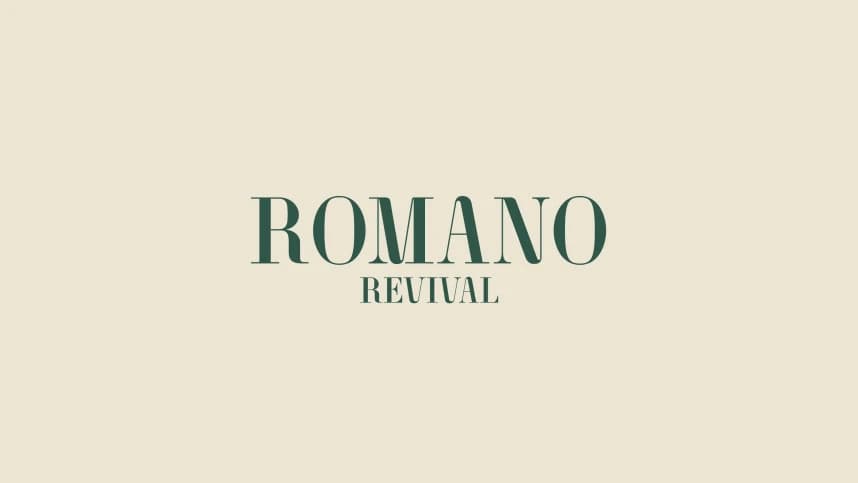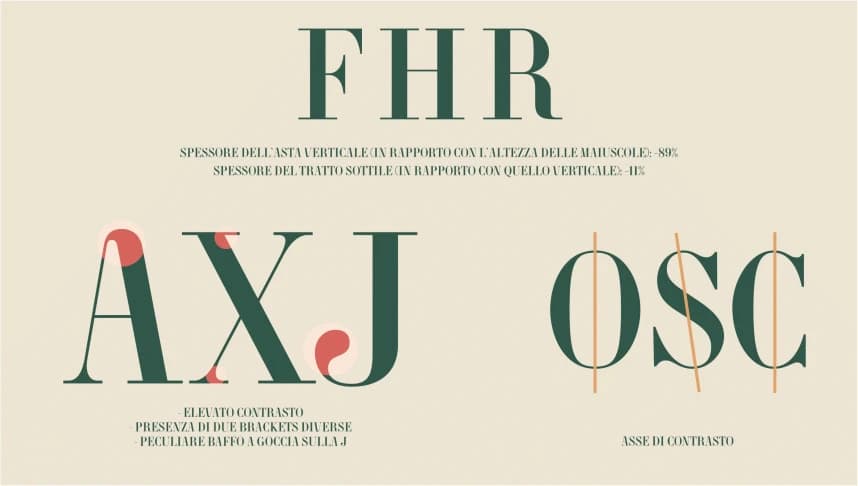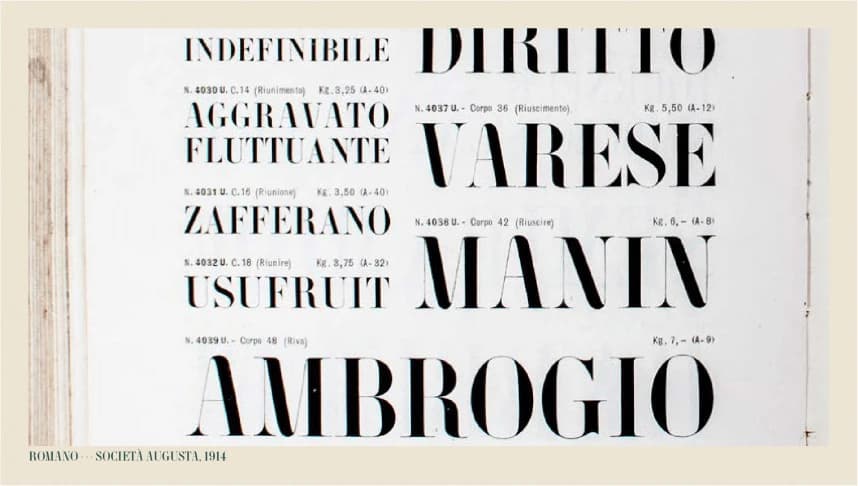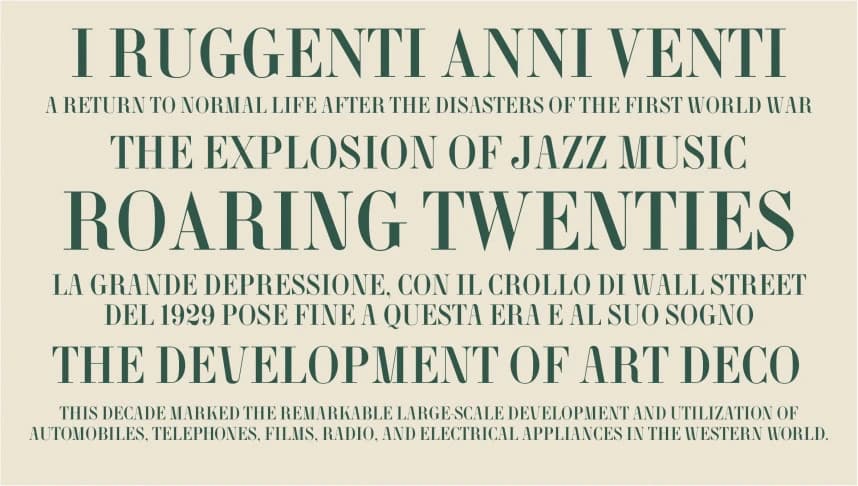
Romano Revival Font
Romano Revival Font is a typeface developed as a university project in collaboration with a team of classmates back in 2023. We were tasked with reviving a 1914 font, working exclusively from photographs of aged pages taken from an original type specimen book where the design appeared.